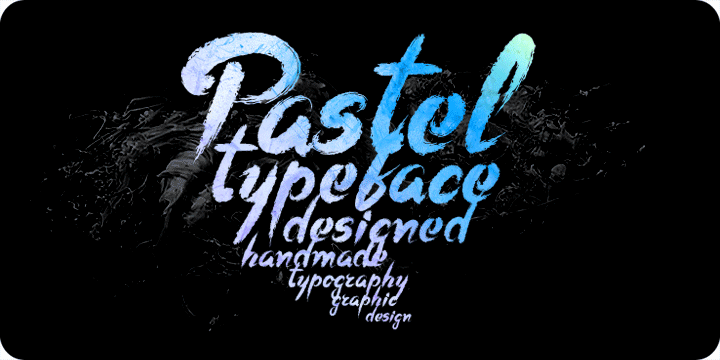
About the Pastel Font
About Pastel Font Family Pastel is a handmade font which is applicable for any type of graphic design – web, print, motion graphics etc, and perfect for t-shirts and logos, Designers: Svetoslav SimovPublisher: FontfabricFoundry: FontfabricDesign Owner: FontfabricMyFonts debut: Mar 26, 2009 Pastel™ is a trademark of Fontfabric,